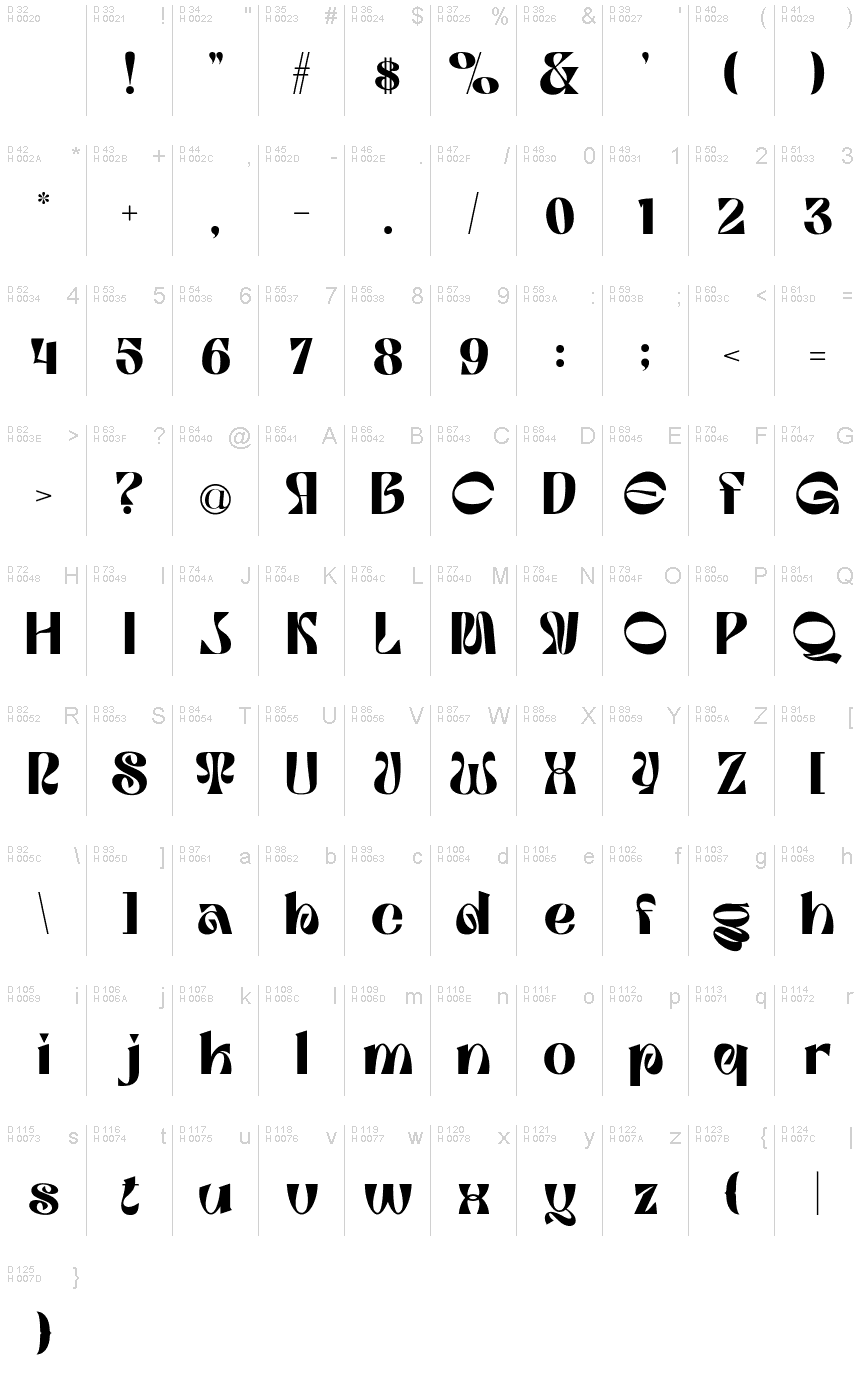
Tango Demo Regular
Tango, crafted by the imaginative minds at TypeClassHeroes, is a display font that dances off the page with its groovy style and bold weight. This semi-expanded typeface embodies an aesthetic of playful movement reminiscent of the 1960s and '70s design waves. Each character boasts curvaceous forms and dynamic flow, giving it a lively presence that is both retro and modern.
The Tango font is brimming with personality, making it a perfect choice for projects that require a touch of whimsy and flair. From eye-catching headlines to standout logos, its distinctive curves capture attention while maintaining readability. Whether used in digital graphics or printed materials, Tango infuses any creative work with its unique charm.
This font's suitability spans across various mediums — from music festival branding to funky apparel designs — offering designers a versatile tool in their typographic toolkit. Embrace the rhythmic elegance of Tango for projects that demand an unforgettable visual impact.